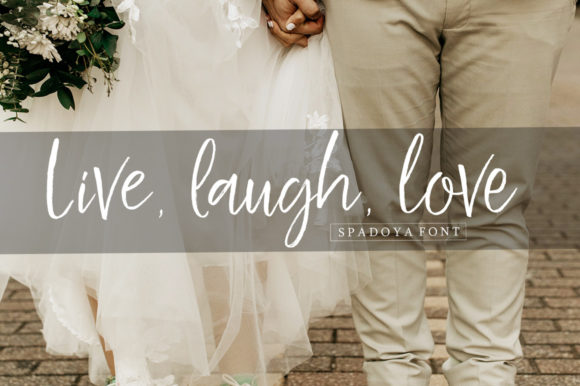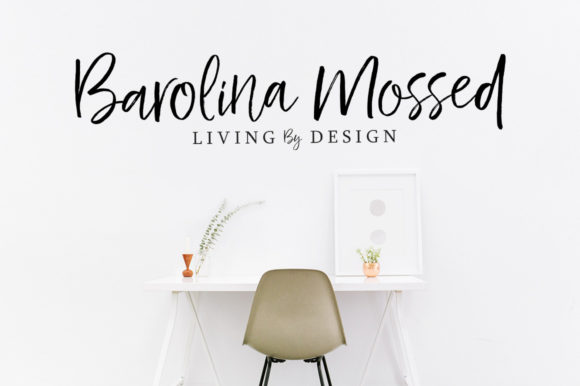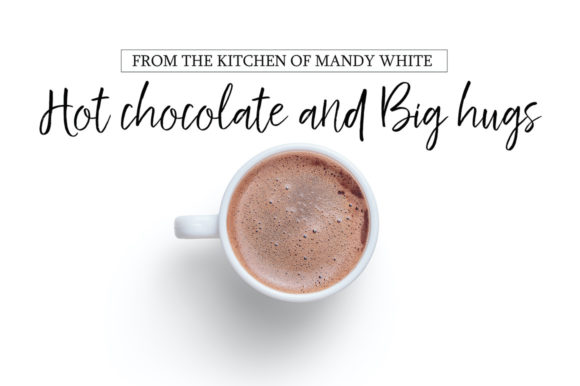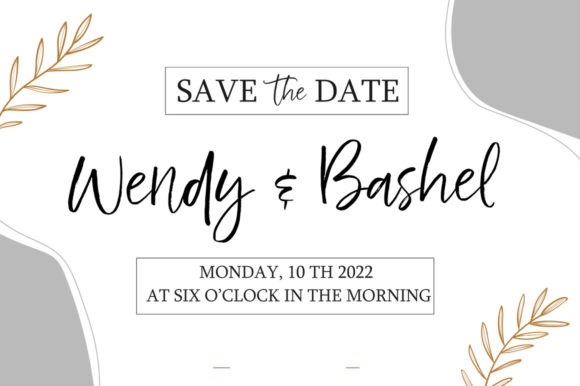
About Spadoya Font
Spadoya is a delicate and elegant handwritten font. Its distinct and well balanced letters make this font a masterpiece. Spadoya is PUA encoded which means you can access all of the glyphs and swashes with ease!